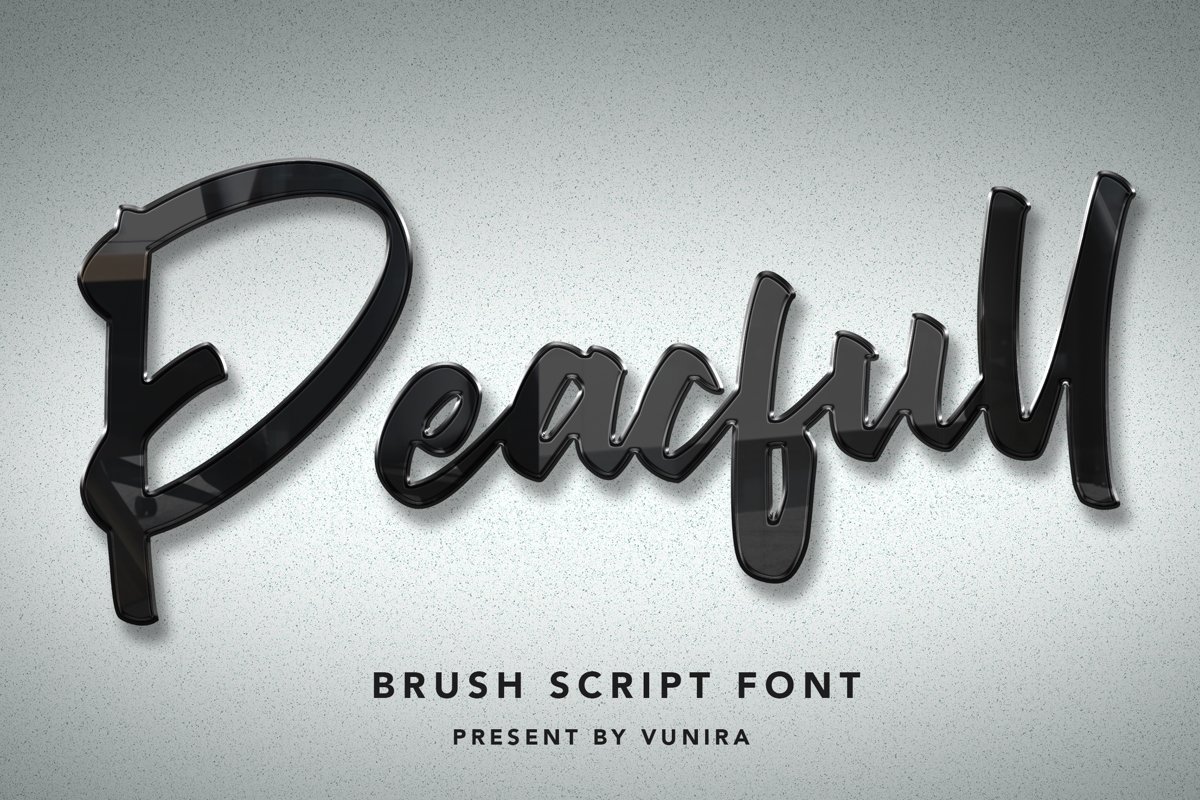
Peacfull | Brush Script Font
Peacfull
**Peacfull | Brush Script Font** with a calligraphy style, So beautiful on invitation like greeting cards, branding materials, business cards, quotes, posters, and more!
* Tons of glyphs
* Alternates and Ligatures
* Fonts include **Multilingual Support**